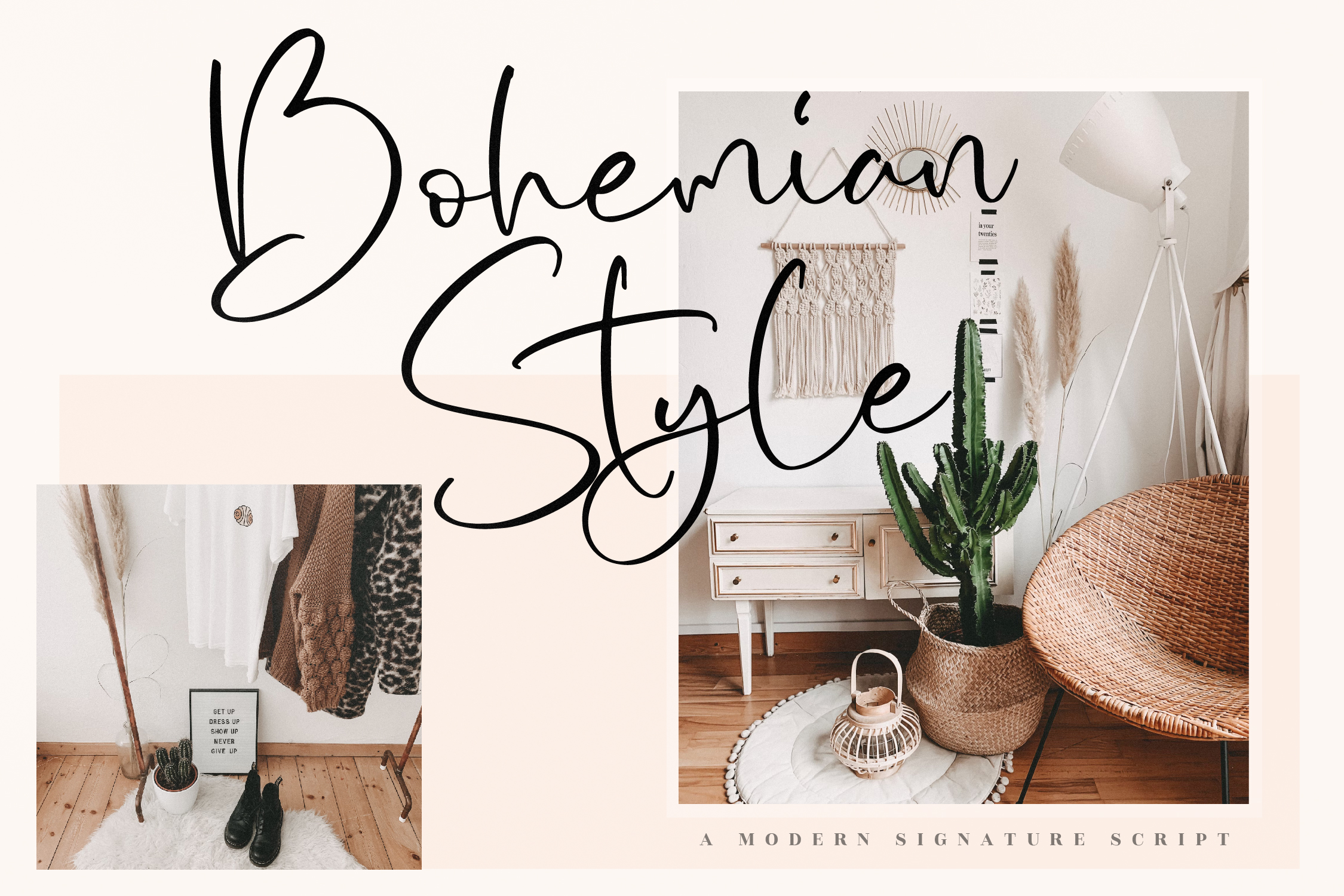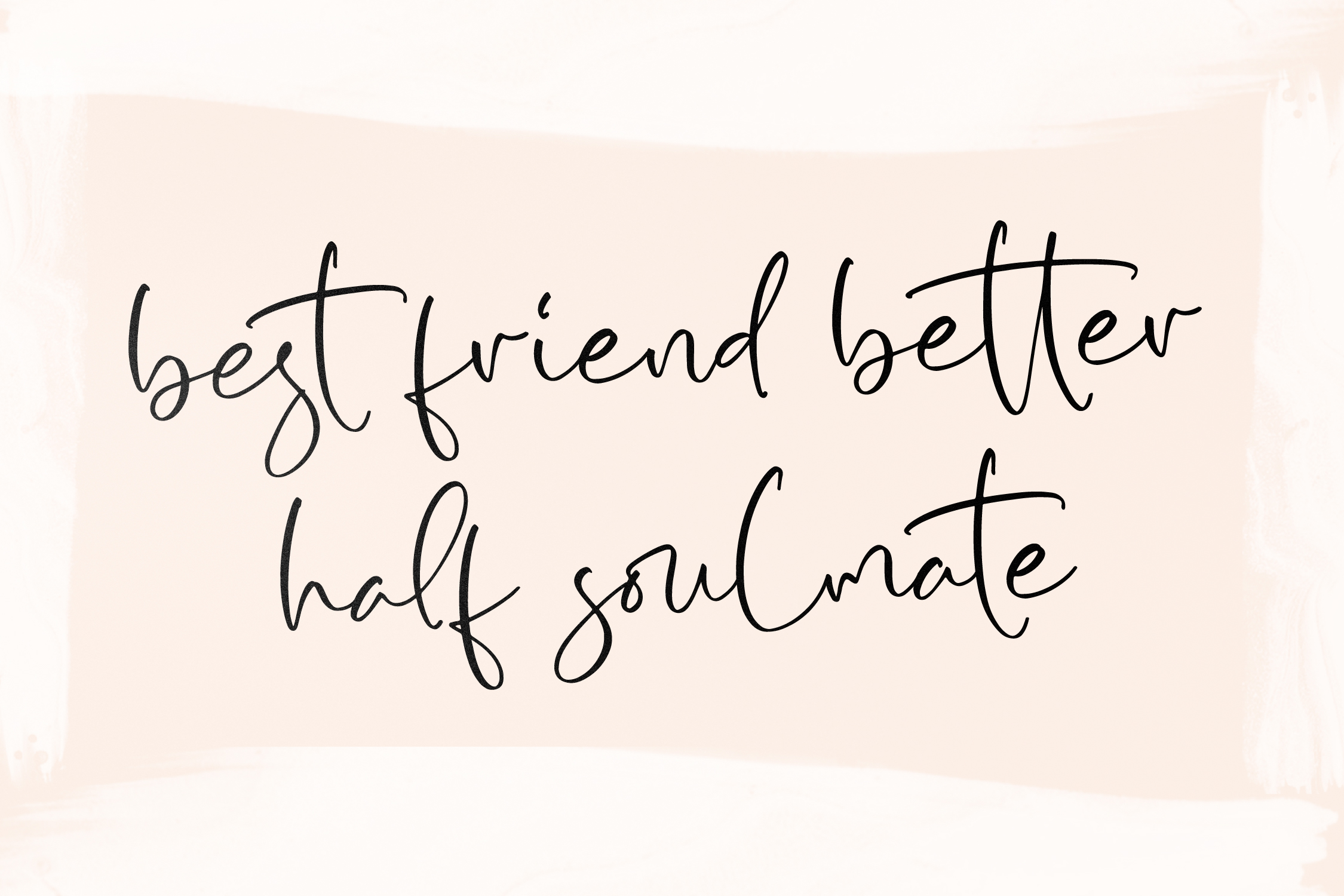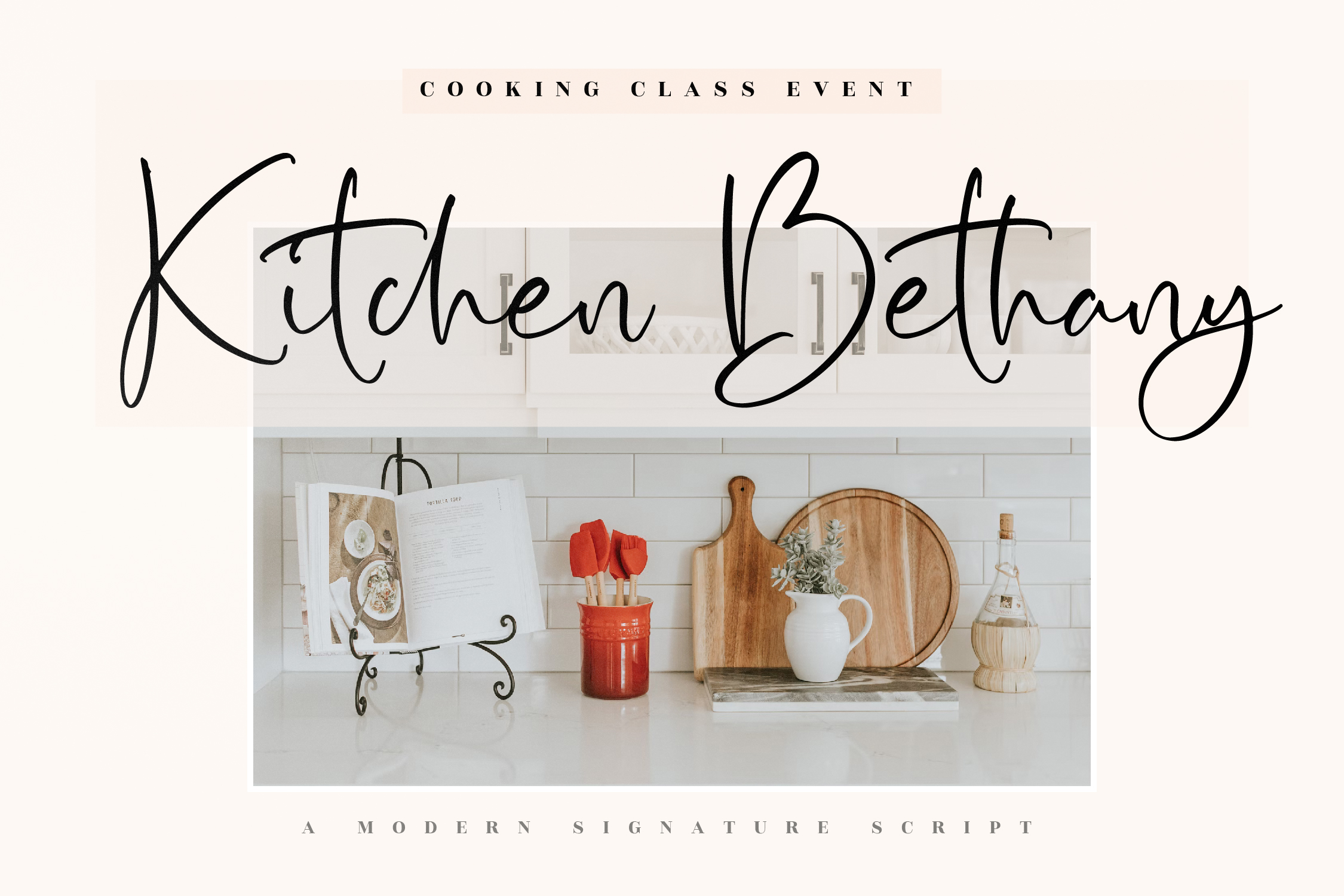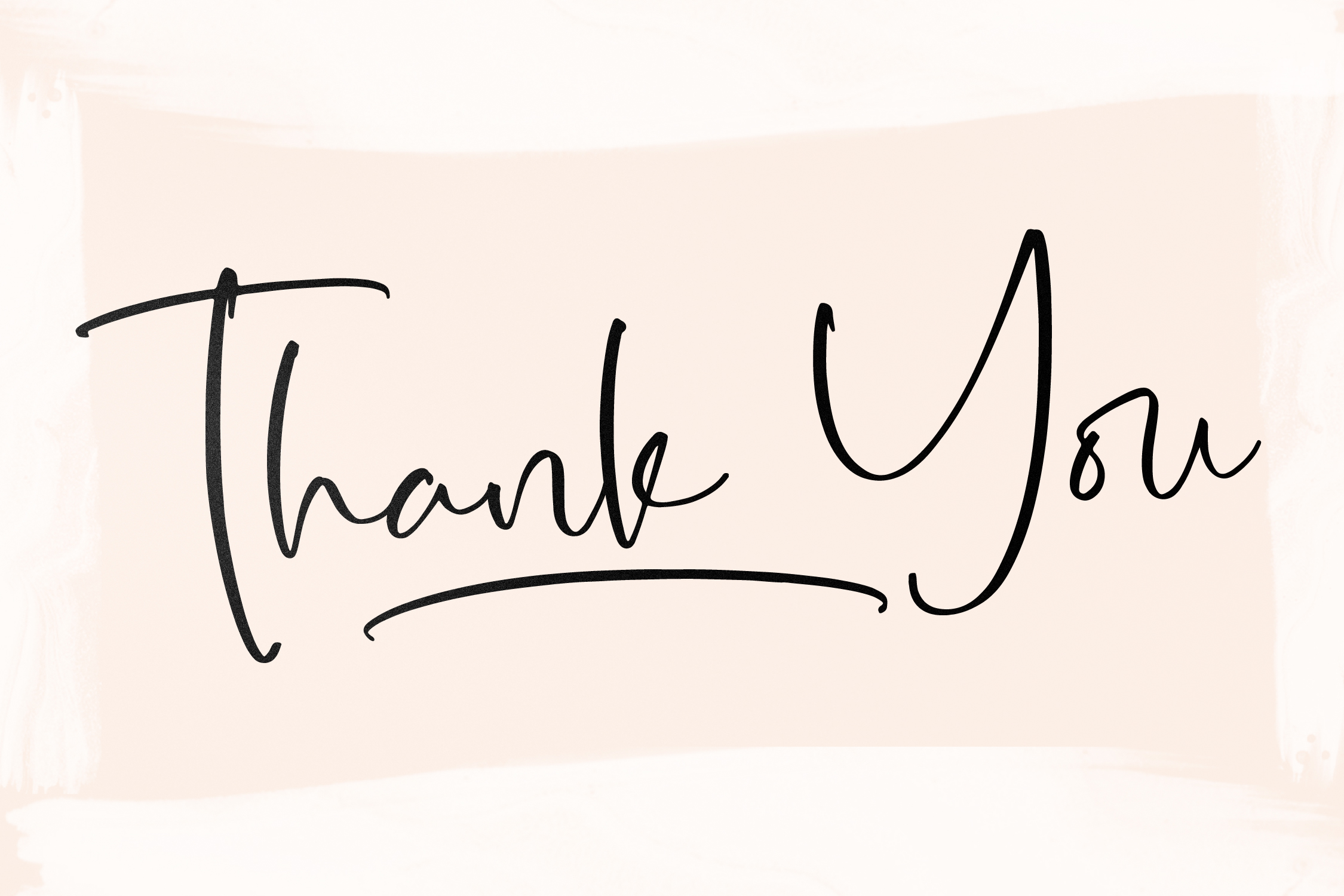
Yolmans Zemicka Font
Yolmans Zemicka Script Font
This is a modern handwritten font, suitable for any projects such as: logos, branding projects, homeware designs, product packaging, mugs, quotes, posters, shopping bags, t-shirts, book covers, name card, invitation cards, greeting cards, label, photography, watermark, special events, and all your other lovely projects that need a beautiful script taste.